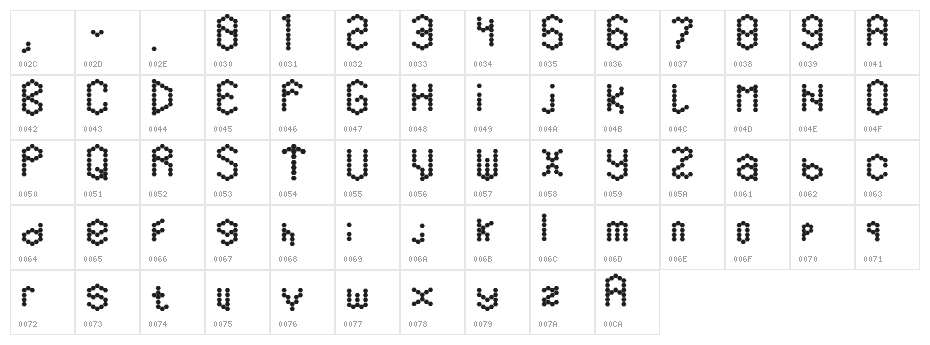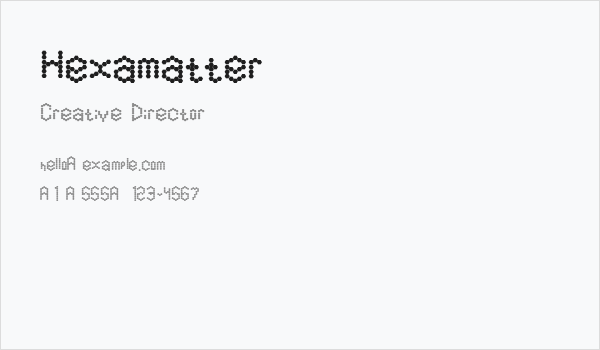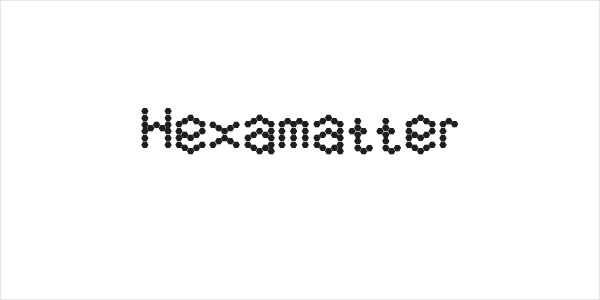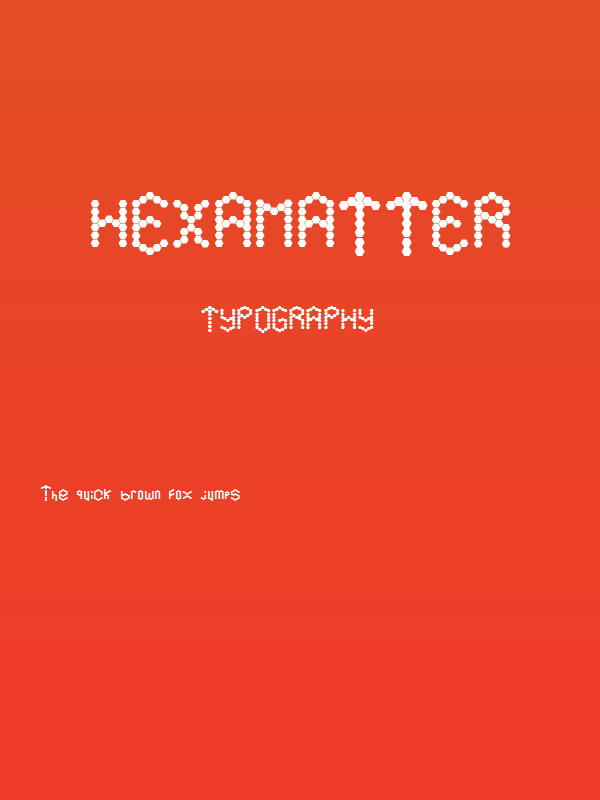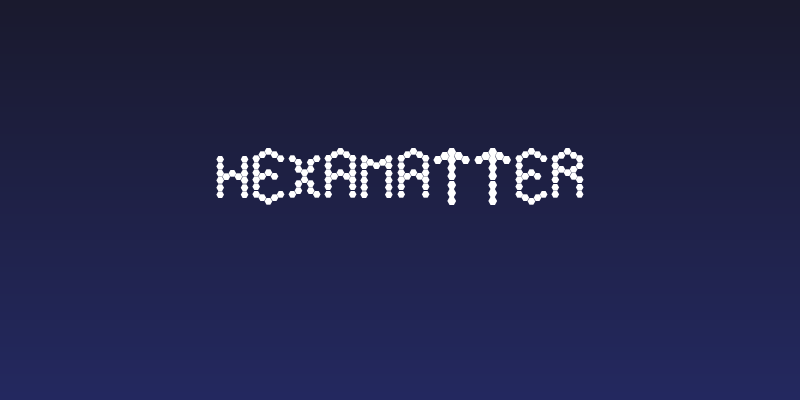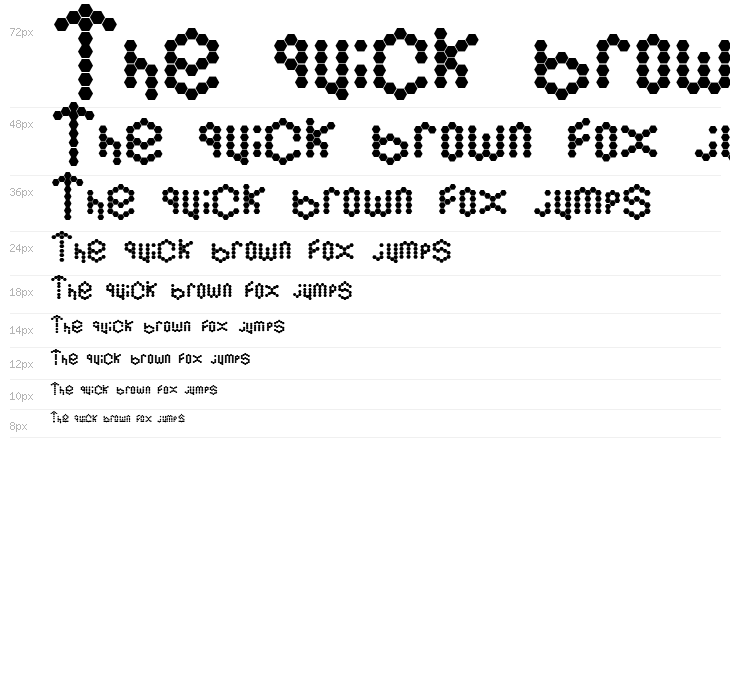
Hexamatter Font
Hexamatter Description
This font features a unique design where each character is constructed from a series of small hexagonal shapes, creating a pixelated and geometric appearance. The letters and numbers are bold and distinct, with a consistent pattern that gives a modern and digital feel. The hexagonal elements are tightly packed, forming clear and legible characters. This style is reminiscent of digital displays or futuristic themes, making it stand out with its unconventional structure. The font maintains uniformity across uppercase, lowercase, and numerical characters, ensuring a cohesive look. Special characters are also included, following the same hexagonal pattern, which adds to the font's versatility and usability in various contexts.
Use CaseHeadlines, Logos, Digital displays
Proposed ProjectsIdeal for tech-themed projects, digital art, video game interfaces, and futuristic branding.